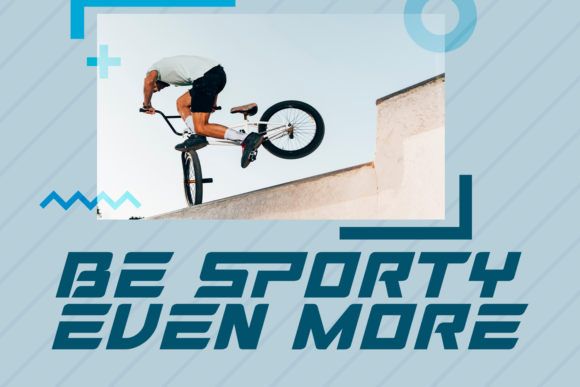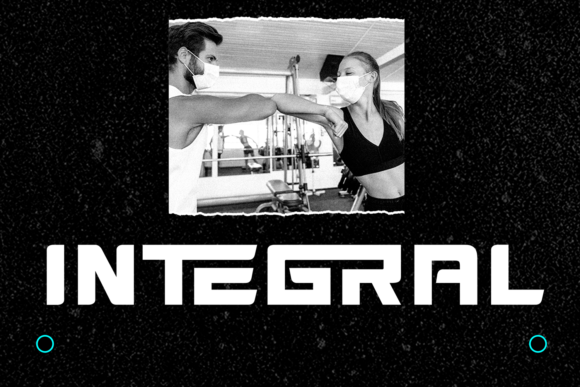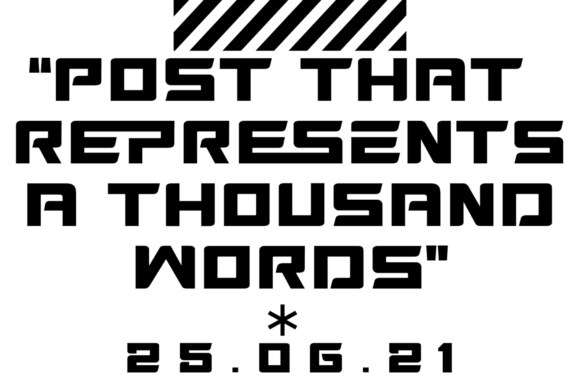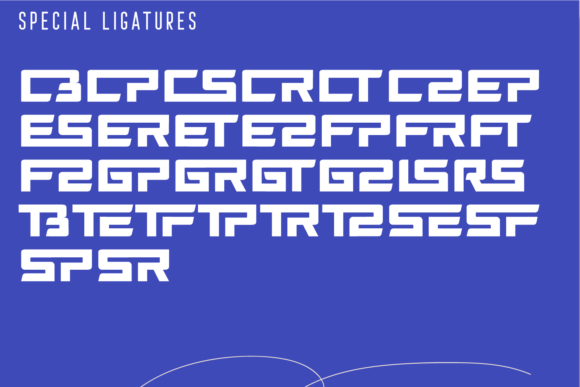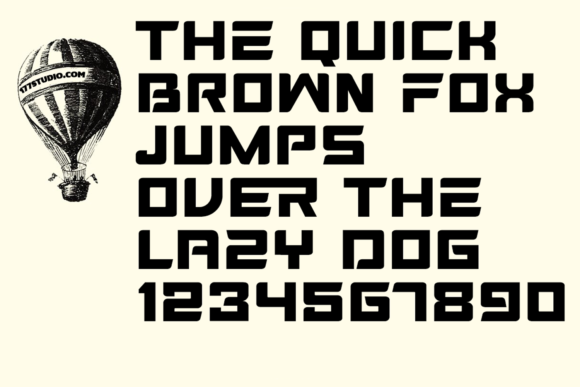
Introduction to Mosfet Font
Mosfet is a modern geometric sans serif font suitable for every graphic design or typography-related project.
The slightly rounded corners of the letters will give an elegant and cool touch to your texts and quotes Add it to your favorite creative projects, and be astounded by its effect.
Key Features of Mosfet Font
Why Choose Mosfet Font?